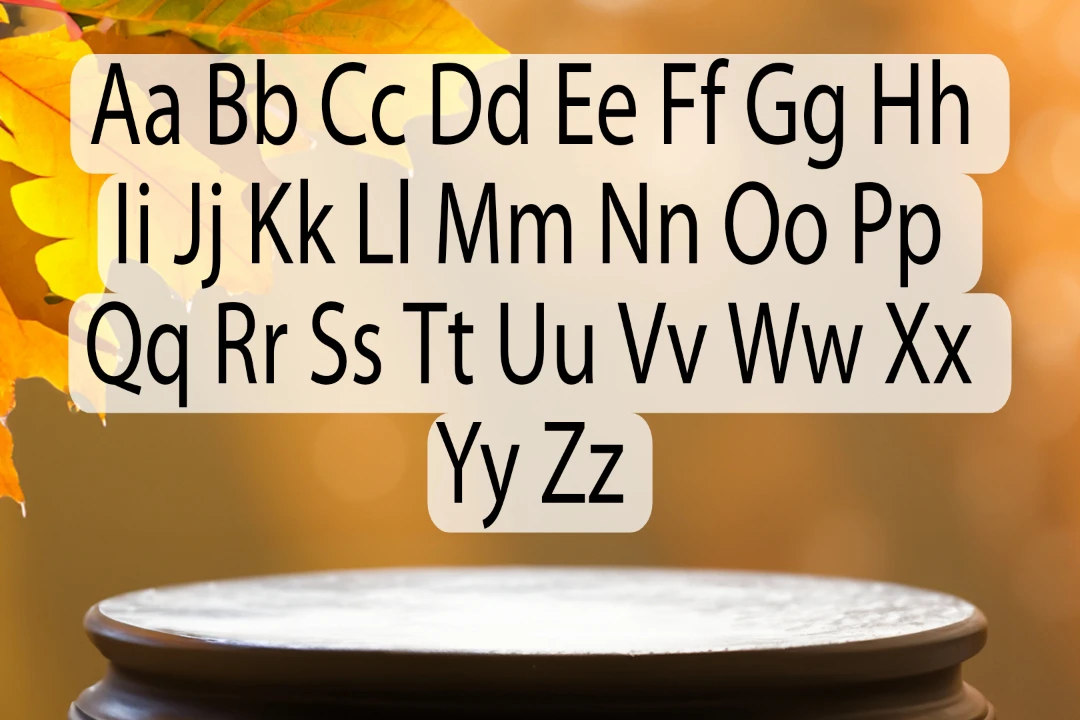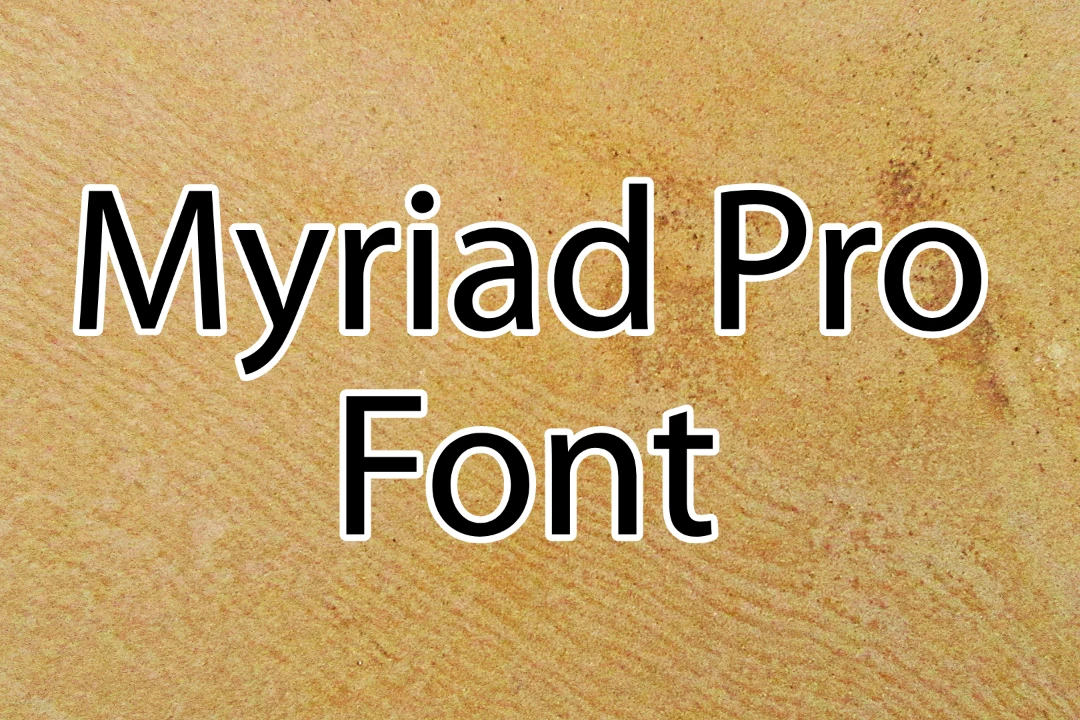
Myriad Pro font is a popular type of font that doesn’t have fancy decorations and looks clean and simple. It was made in the 1990s by two designers named Carol Twombly and Robert Slimbach from America.
Many well-known companies like Apple use this font for their logos and writings.
This font is easy to recognize because of some special letters like ‘y’ and ‘e’. You can find it in Adobe software, and it comes with extra styles and languages like Greek, Cyrillic, and Latin.
Myriad Pro font has different styles and thicknesses, like regular, bold, and italic. Even if it’s not already on your computer, you can still use it for designing because there’s an online tool for making text look nice with this font.
| Name | Myriad Pro Font |
| Designer | Robert Slimbach and Carol Twombly |
| Style | Sans Serif |